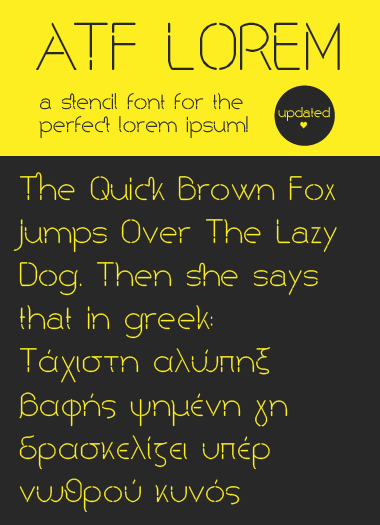
Nice stencil work! The k is a bit narrow, is it not?
This is really wonderful. Some of the curves are just spectacular. There does seem to be a bit of a width issue. If 'M' is however wide it is, the 'a' seems too wide in comparison. Or vice versa. Et cetera. While some shapes are delightful, like the 'c' or 'γ', others seem awkward, such as the 2, B. I think you have the making of something great here, which can be made greater with a little bit of rethinking and reworking.
What a way to start! Very distinctive. 10/10
I'm reworking some letters you mentioned, now that I see the differences, I think you are right! What do you think? Better?
I'll see some other letters as well, and when I'm done with the redesign I'm gonna update the font.
Great! And the updates look definitely better.
Yeah, the B and 2 are definitaly better (even though they lose some of their distinctive personality).
I could do a letter by letter breakdown, but this is not my font, therefore it should not be my vision. You are on the right track though.
Here's quite an original typeface. I'm afraid thalamic is right for the preview of all characters, although the width issue is less apparent in the sample. Maybe sometimes one has to focus more on the contexts in which the capitals appear.